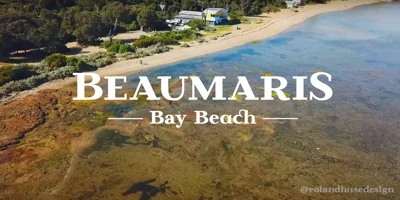
Beaumaris Font
Beaumaris Font is perfect for coastal resort branding, seaside hospitality marketing, maritime heritage projects, Welsh cultural communications, castle tourism materials, elegant waterfront dining establishments, luxury coastal real estate, and distinguished heritage preservation campaigns. This refined typeface excels in applications requiring coastal elegance and heritage sophistication that captures the essence of seaside nobility and maritime tradition through distinguished visual character and coastal charm.
What makes Beaumaris Font exciting is its coastal sophistication that perfectly captures the essence of seaside elegance and maritime heritage through elegantly crafted letterforms inspired by coastal nobility. The font features refined character construction with coastal proportions and heritage styling that instantly conveys themes of elegance, tradition, and seaside sophistication perfect for brands celebrating coastal culture and maritime luxury experiences.
The Beaumaris Font family includes elegant coastal weights and heritage variations with maritime styling elements, offering designers comprehensive tools for creating sophisticated seaside compositions. The family provides consistent coastal aesthetic with varying elegance levels for versatile maritime communications and heritage branding projects requiring genuine coastal character and seaside sophistication appeal.
Beaumaris Font offers designers access to premium coastal typography that perfectly embodies the spirit of seaside elegance and maritime heritage sophistication. Whether you're creating coastal resort materials, maritime tourism campaigns, heritage preservation communications, or elegant waterfront branding, this font provides the refined character needed for establishing coastal authority and maritime brand credibility.
The elegantly crafted letterforms of Beaumaris Font ensure excellent readability while maximizing coastal charm and heritage sophistication, making it ideal for seaside hospitality marketing, maritime heritage communications, and coastal luxury brand presentations. This distinguished typeface combines coastal heritage with contemporary technical standards for outstanding performance in modern design environments requiring authentic maritime character and sophisticated seaside presence.